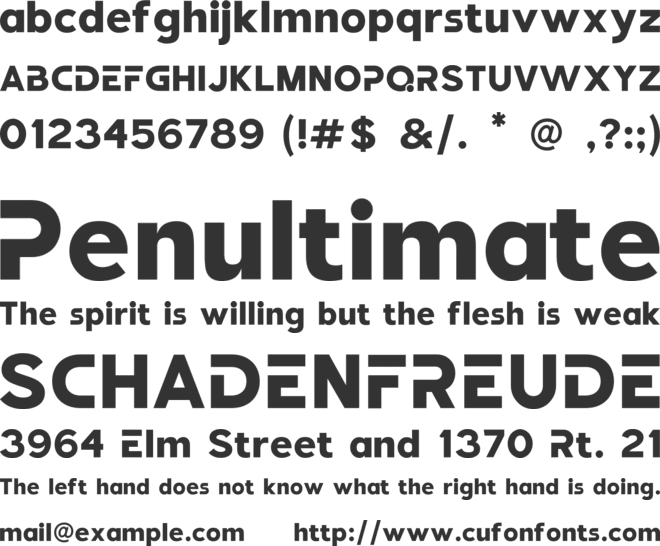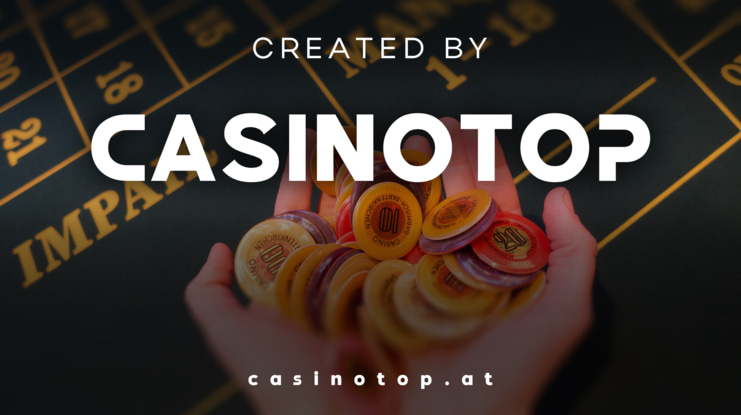
Casinotopat Font
Casinotopat Font is a stunning and versatile typeface that can add a touch of elegance to any project. The font free for personal use. For commercial use, please order a license here: https://casinotop.at/ - feel free to write to support